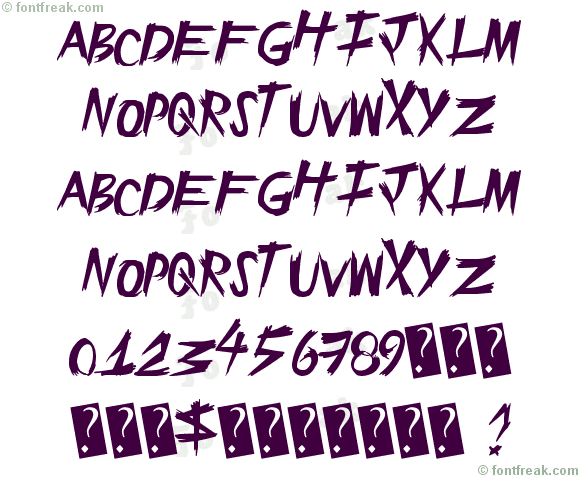
EpicSlash
EpicSlash by Xerographer Fonts is a striking display font that captures attention with its bold and dynamic design. Characterized by its playful, jagged edges and dramatic strokes, this font exudes a sense of energy and creativity. The irregular stroke weight and high contrast between thick and thin lines lend it a distinctive look that sets it apart from more traditional fonts. The spacing between letters is thoughtfully designed, allowing for easy readability while maintaining an edgy aesthetic.
EpicSlash is particularly suited for a variety of creative projects. Its unique visual style makes it an excellent choice for movie posters, where it can evoke excitement and intrigue. It also works well for music event flyers, giving a vibrant personality to promotional materials. Restaurant menus and food truck branding can benefit from its eye-catching design, making dishes feel more adventurous and appealing. Additionally, the font is perfect for social media graphics aimed at a youthful audience, as it captures attention and conveys a fun, modern vibe.
The target audience for EpicSlash includes graphic designers, small business owners, and content creators looking to make a bold statement in their work. Whether you are designing a logo, creating marketing materials, or adding flair to a website, this font is versatile enough to suit various needs while maintaining its distinctive character.